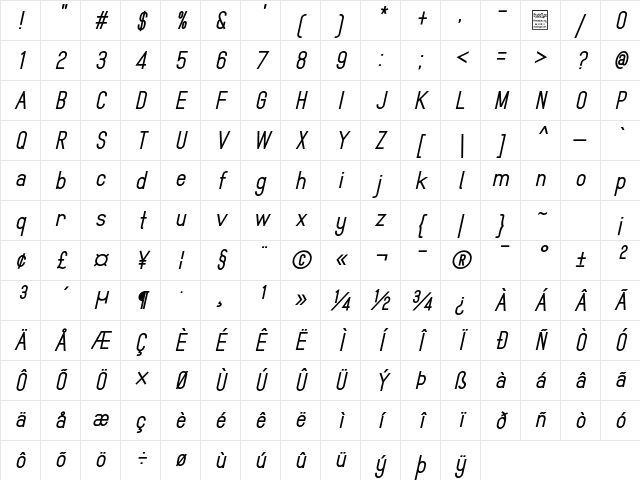
MindBlue Bold Italic Free Font
MindBlue Bold Italic
Foundry: StudioTypo
Design Context for MindBlue
MindBlue is a composed and adaptable typeface that performs quietly and consistently across a wide range of design contexts. The slanted form adds forward momentum and visual energy. Its bold stroke weight gives it real presence on the page.
Pro Tip: Use MindBlue for emphasis, pull quotes, and subheadings where its slanted energy can add rhythm to the layout.